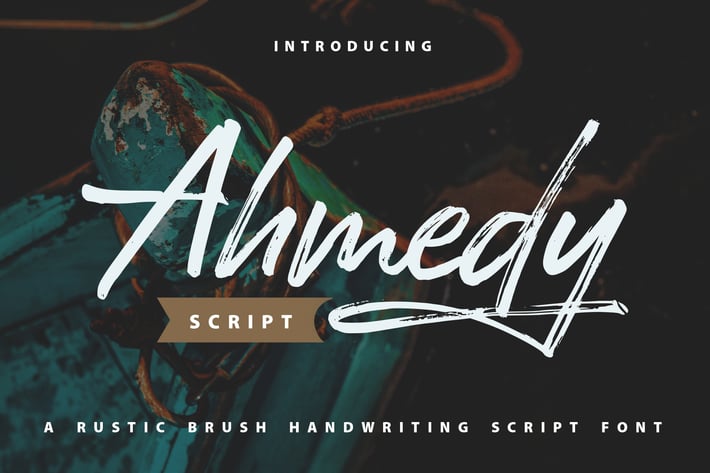
Ahmedy | Rustic Brush Handwriting Script Font
Ahmedy | Rustic Brush Handwriting Script Font with a calligraphy style, So beautiful on invitation like greeting cards, branding materials, business cards, quotes, posters, and more!